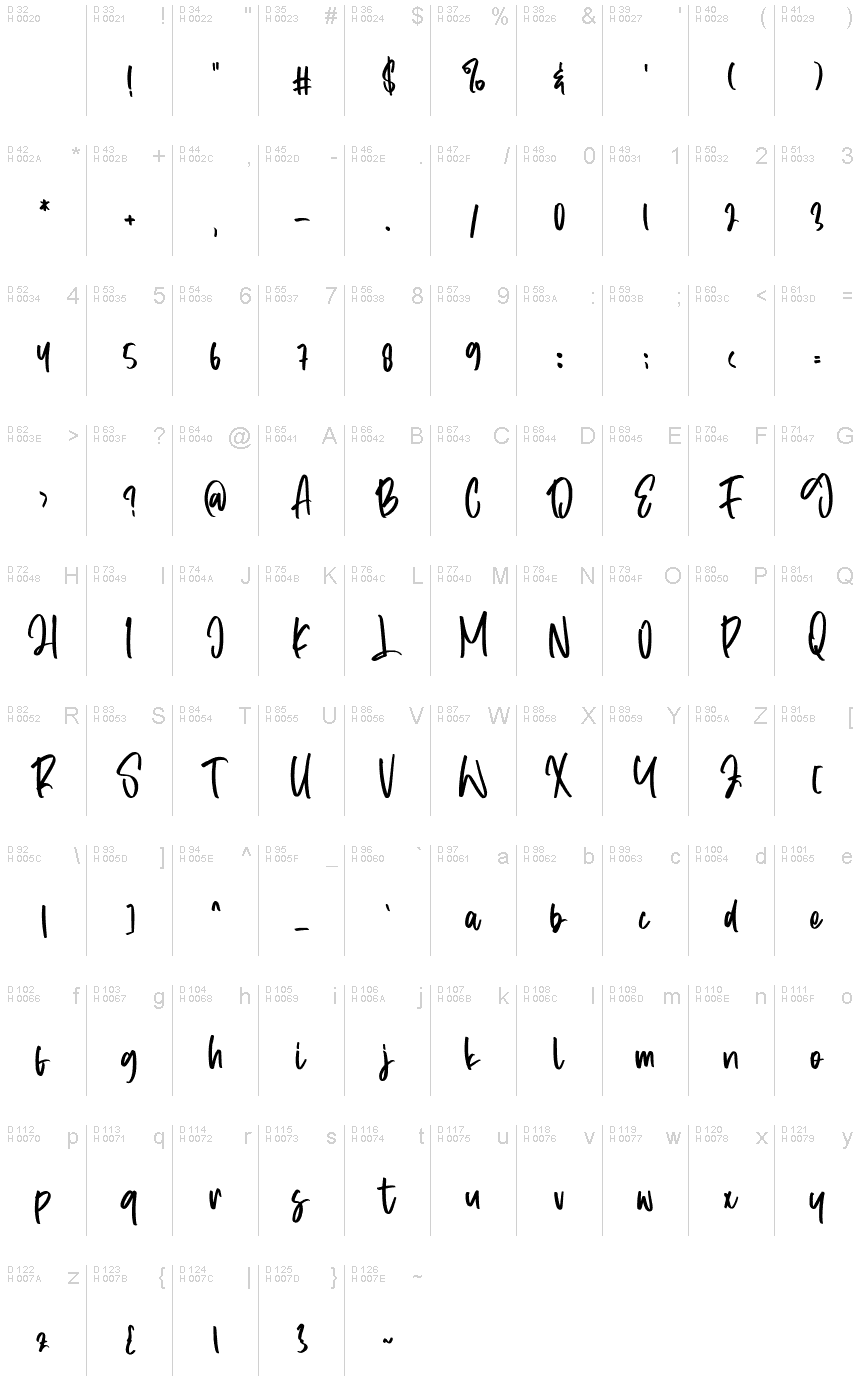
Hitherto
Hitherto is a charming, semi-light handwritten font designed by Hatf Type. Its cheerful and whimsical style adds a touch of playfulness to any project. The semi-condensed width makes it ideal for headlines, titles, and logos that require a contemporary yet elegant look. Hitherto is perfect for children's books, greeting cards, invitations, and other creative endeavors that call for a personalized touch. Whether you're designing a logo for a startup or creating an eye-catching poster, Hitherto is the perfect choice to add personality and charm to your work. Try it today and see how this delightful semi-light font can transform your designs!